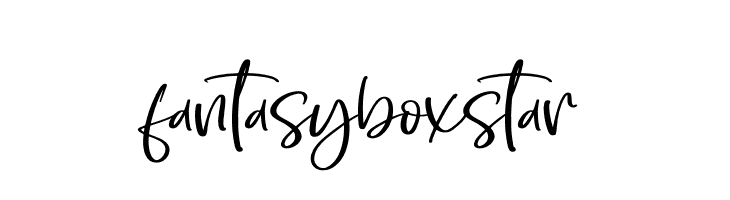
( Fonts by Ade Budiman )
A playful, casual handwritten font with rounded, consistent strokes.
( Fonts by Graphix Line Studio )
A playful, handwritten font with smooth, flowing lines and a casual vibe.
( Fonts by madeDeduk )
A graceful, handwritten script font with flowing, elegant strokes.
( Fonts by Scratchones )
A playful, handwritten script font with dynamic, flowing strokes.
( Fonts by María Retamosa )
( Fonts by InspiraType )
A dynamic, fluid script font with elegant, flowing lines and a modern appeal.
( Fonts by InspiraType )
A dynamic and flowing script font with elegant, fluid strokes.
( Fonts by Pustudio )
A modern, stylish handwritten font with fluid and dynamic strokes.
( Fonts by Rianne Maria )
A playful, rounded font with bold strokes and a casual style.